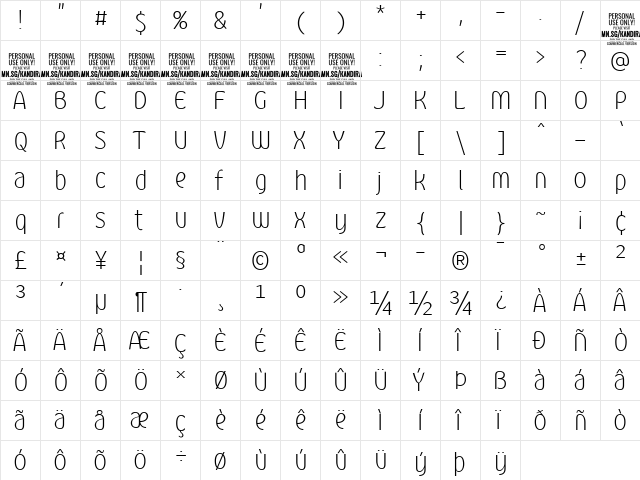
Kandira PERSONAL ExtraLight
| Foundry | Mans Greback |
| Designer | Mans Greback |
Design Context for Kandira PERSONAL Typeface
Kandira PERSONAL is a composed and adaptable typeface that performs quietly and consistently across a wide range of design contexts. Its slender proportions lend an understated elegance to any composition.